2 Google Fonts Similar to Myraid Pro
Myraid Pro is a sans-serif font that was released in 1992 by Adobe. It is popular for both text and display. It covers Latin, Greek, and Cyrillic glyphs. This font maintains a warm and readable style which makes it great for headlines.
This font was difficult to find a really good alternative too. I would find some similarities with the font for half the alphabet, but the other half would be dramatically different.
What Google Fonts are Similar to Myraid Pro?
The best Google Font alternative to Myraid Pro are:
- PT Sans
- Open Sans
Either one of these will work as a similar lookalike.
So lets dive into their similarities and differences.
PT Sans
PT Sans is a great alternative sans-serif. It closely mimics other premium fonts. The font came out in 2009 and was originally designed for the Russian language. However, it's characters can be used for the English language too. It features easy to read letters that are professional, yet still friendly and welcoming.
I feel like PT Sans does a great job at mimicking the fun and playfulness of Myraid Pro.
Main letters such as at the "t", "a", and "h" are all close matches.
However, you will find differences in the lowercase "g", "l", and "b". In the uppercase, you can see that the "Q" and "M" are very different.
Here are some images I put together for you to compare for yourself.
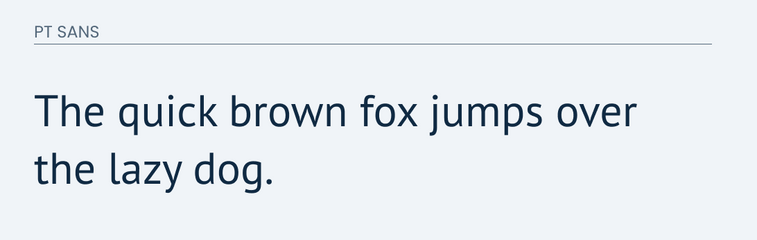
Open Sans
Open Sans is a sans-serif typeface that represents neutral and friendly design. It is one of the most widely used Google Fonts.
It also does a great job at matching both the uppercase and lowercase letters of Myraid Pro.
The main differences in the lowercase are going to be with the "g". Open Sans's "g" features two circles on top of each other while the "g" in Myraid Pro is more of a traditional "g".
In the uppercase set, you will find more differences.
Final Thoughts
Overall, PT Sans or Open Sans would make for a decent alternative. Neither one of these fonts would make an exact match, but if you wanted something similar either one would work.